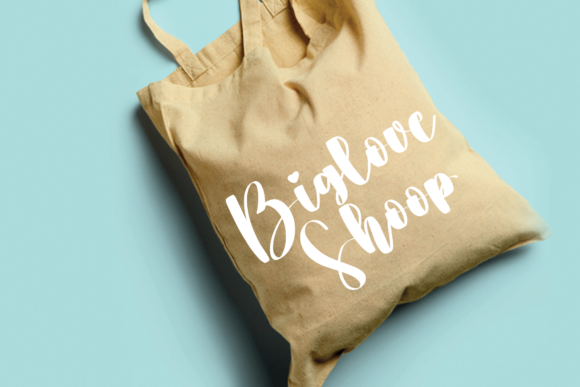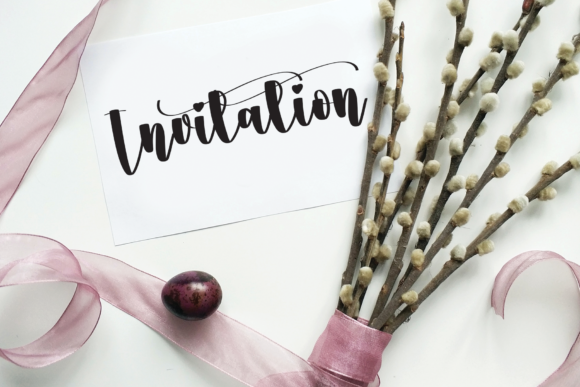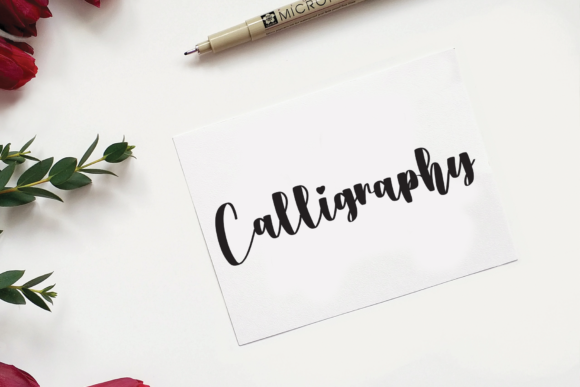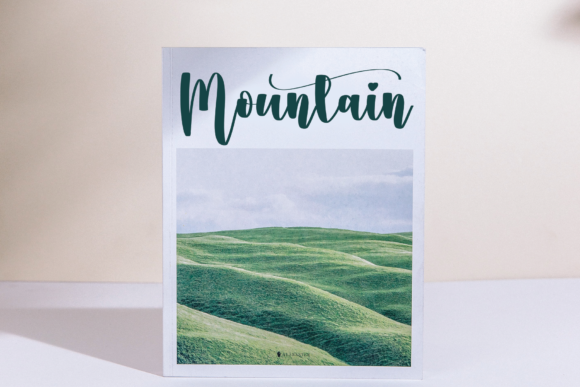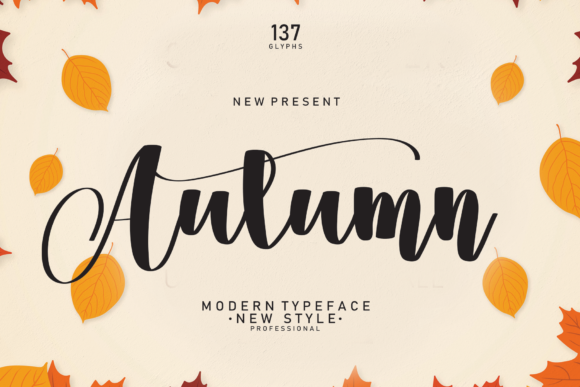
The Magic of Autumn Font: Elevate Your Designs with Elegance
I’ll never forget the time I was working on a project for a high-end client, and I was struggling to find the perfect font to match their luxurious brand. I had tried countless fonts, but none of them seemed to capture the essence of sophistication and elegance that I was looking for. That’s when I stumbled upon Autumn Font, and it completely transformed my design. In this article, I’ll share with you why Autumn Font is a game-changer for designers, crafters, and creative hobbyists alike.
A Personal Review: What I Love About Autumn Font
Autumn Font is a beautiful and chic handwritten font with a unique feel and a stunning impact. Here are some things that I absolutely love about it:
- ✨ Unique and elegant handwritten style that adds a touch of luxury to any design
- ✅ Extensive character set, including OpenType features and glyphs
- ✅ Perfect for a wide range of design projects, from branding and packaging to invitations and stationery
The Small Print: A Few Quirks to Consider
While Autumn Font is an amazing addition to any design project, there are a few quirks to be aware of:
- ⚠️ Some users may find the font a bit too ornate for very small font sizes or body text
- 🤔 Limited availability of certain characters or glyphs in certain platforms or software
The Story Behind Autumn Font
Autumn Font was designed by a talented type designer who wanted to create a font that captured the essence of luxury and sophistication. Inspired by the beauty of nature and the elegance of handwritten scripts, Autumn Font was born. With its unique feel and stunning impact, it’s no wonder that Autumn Font has become a favorite among designers and crafters alike.
| What is Autumn Font? | Autumn Font is a beautiful and chic handwritten font with a unique feel and a stunning impact. |
| Is Autumn Font suitable for body text? | While Autumn Font is highly legible, it may be too ornate for very small font sizes or body text. It’s best used for headlines, titles, and short paragraphs. |